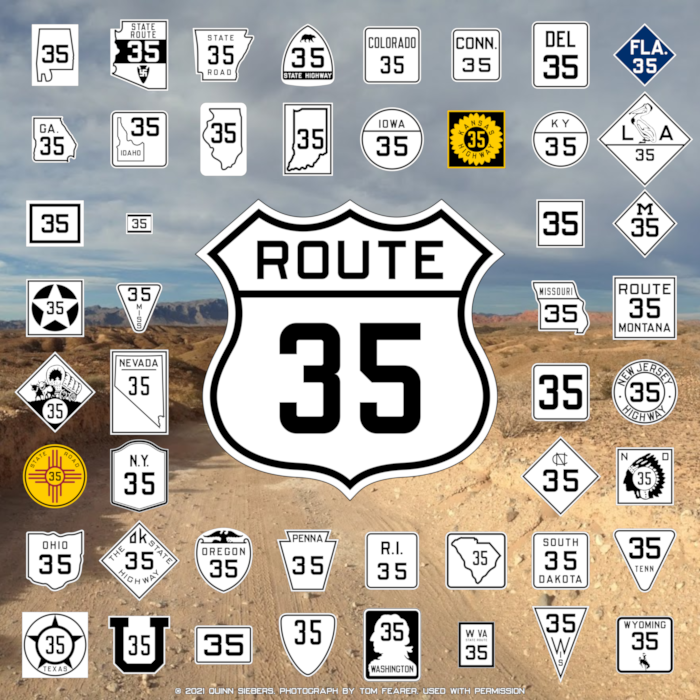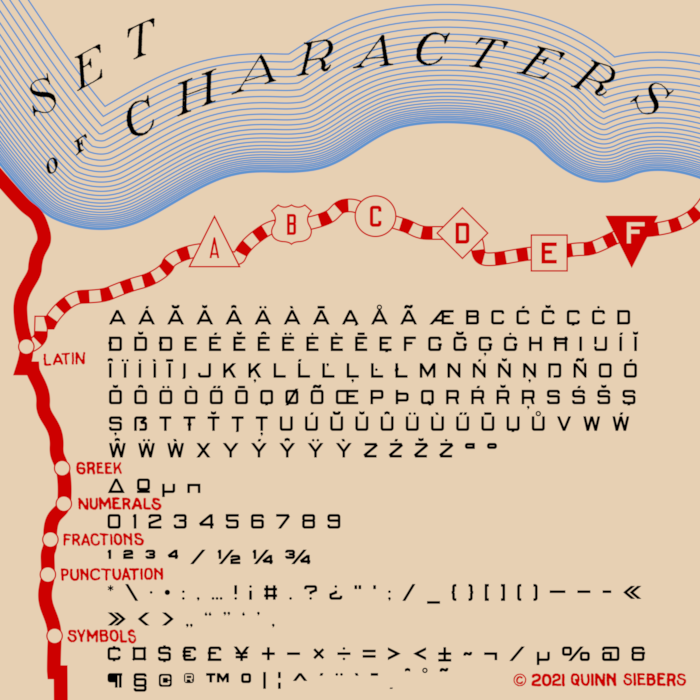
The proportions kind of reminds me of the Alfphabet font, but some letters being different from that font
@BWM Makes sense, as Alfphabet is based on Belgian road signs from the 40s to 70s.
ROUTE 35Fby Quinn Siebers (packerfan21396)